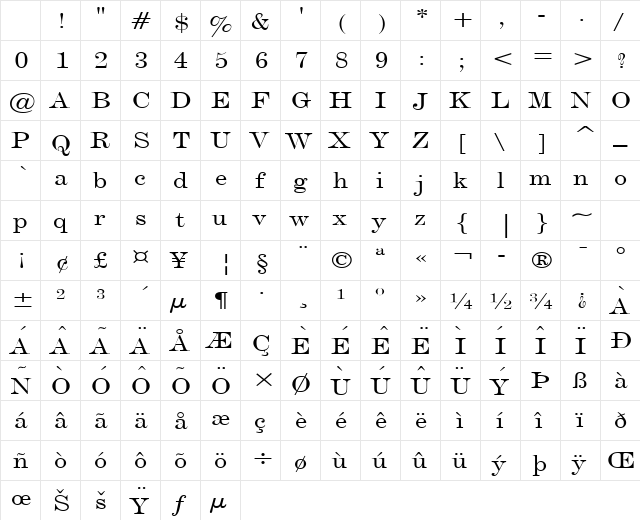
Devine Wide Normal
Devine Wide Family
Complete Devine Wide Normal glyph index. Displaying only characters natively supported by Devine Wide Normal font.
Design Context for Devine Wide
Devine Wide is a composed and adaptable typeface that performs quietly and consistently across a wide range of design contexts.